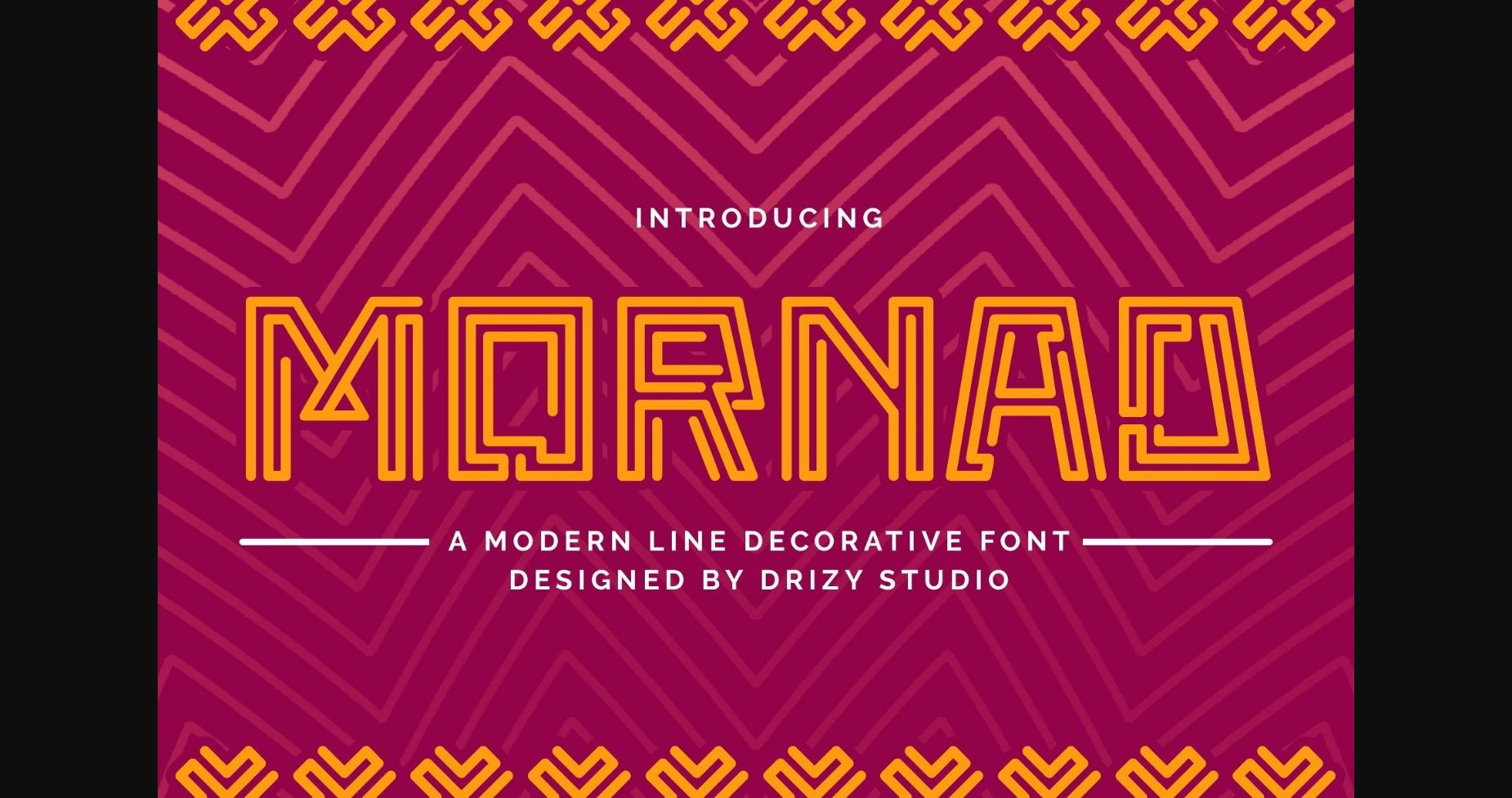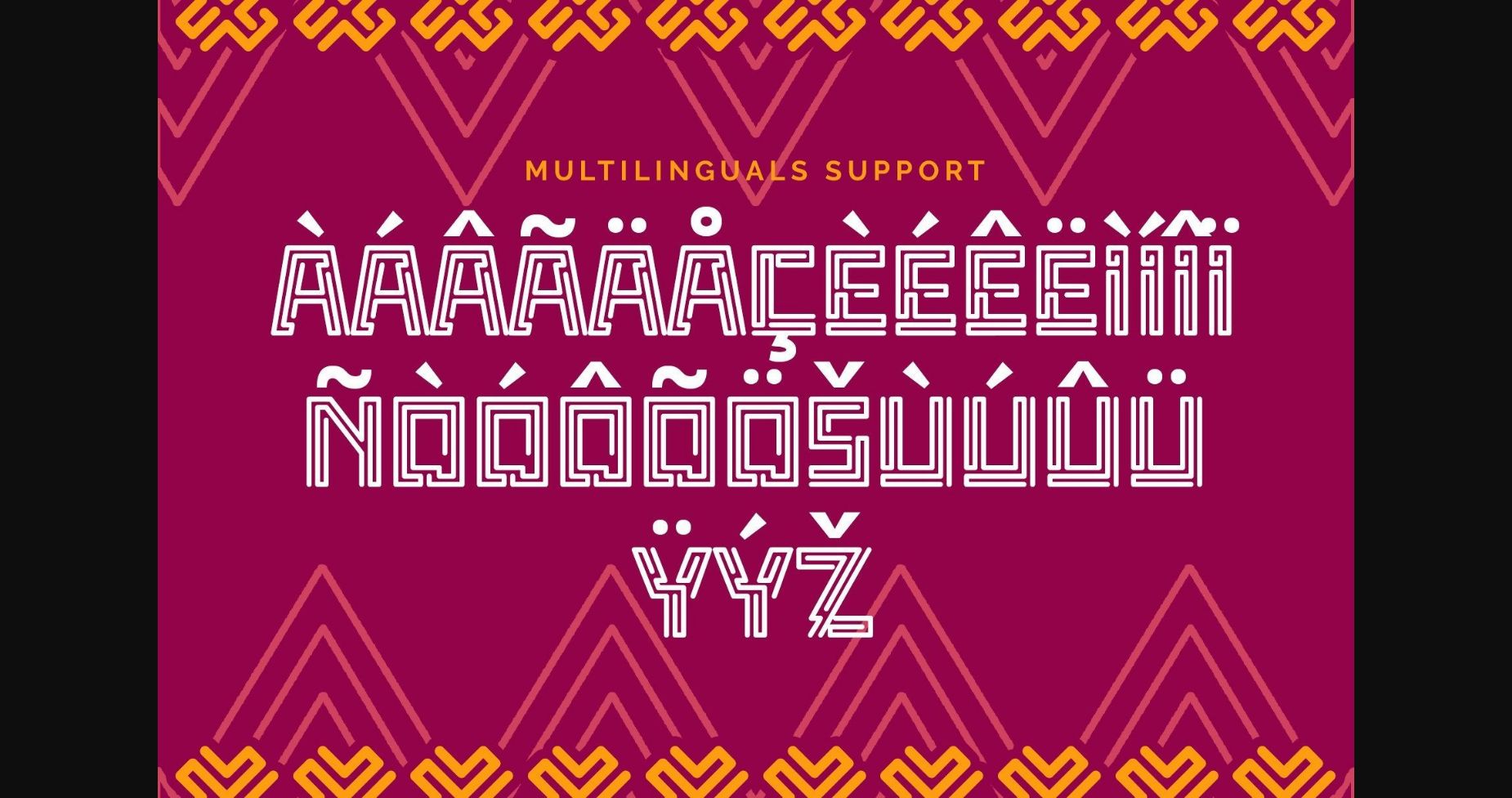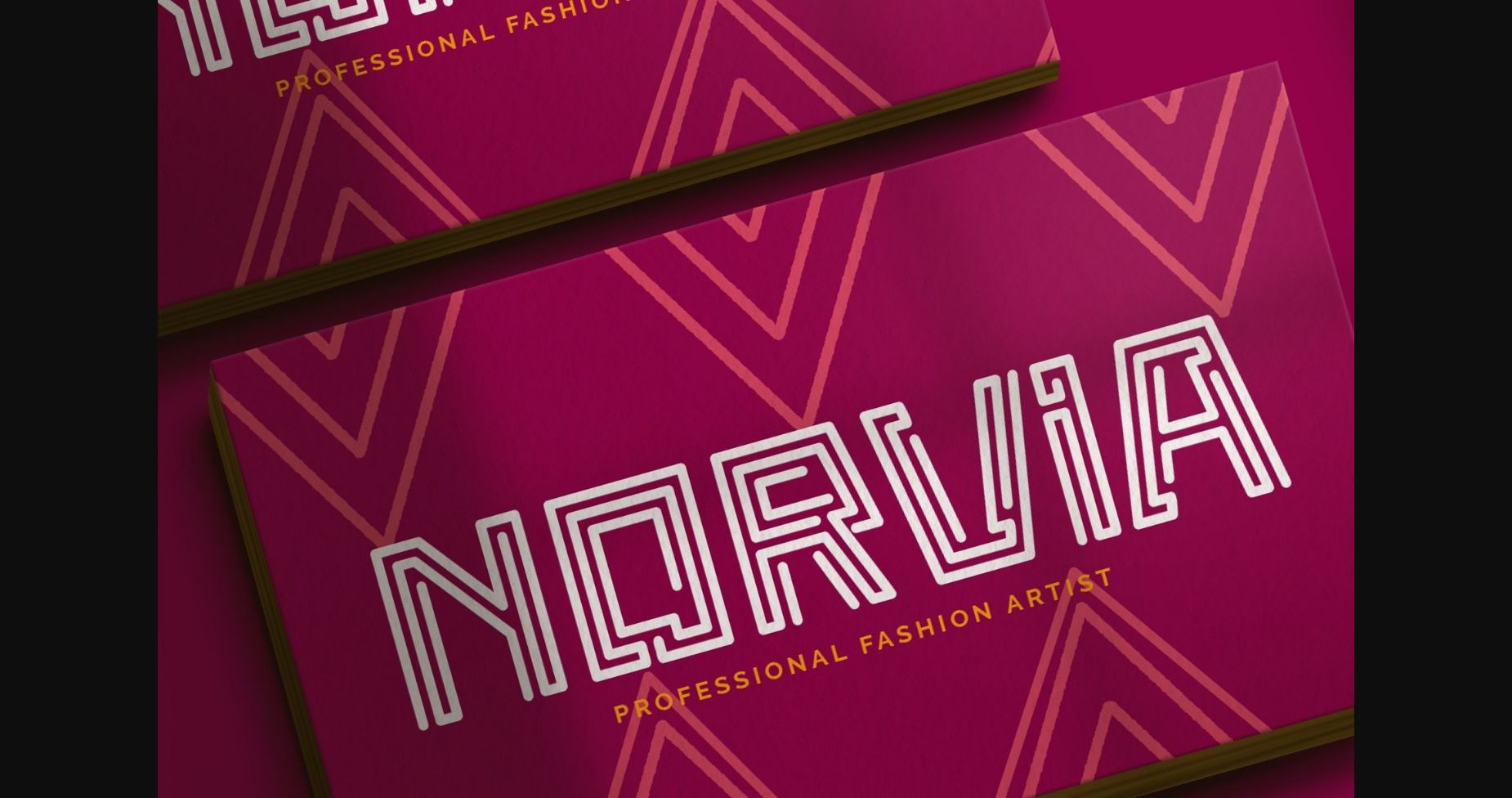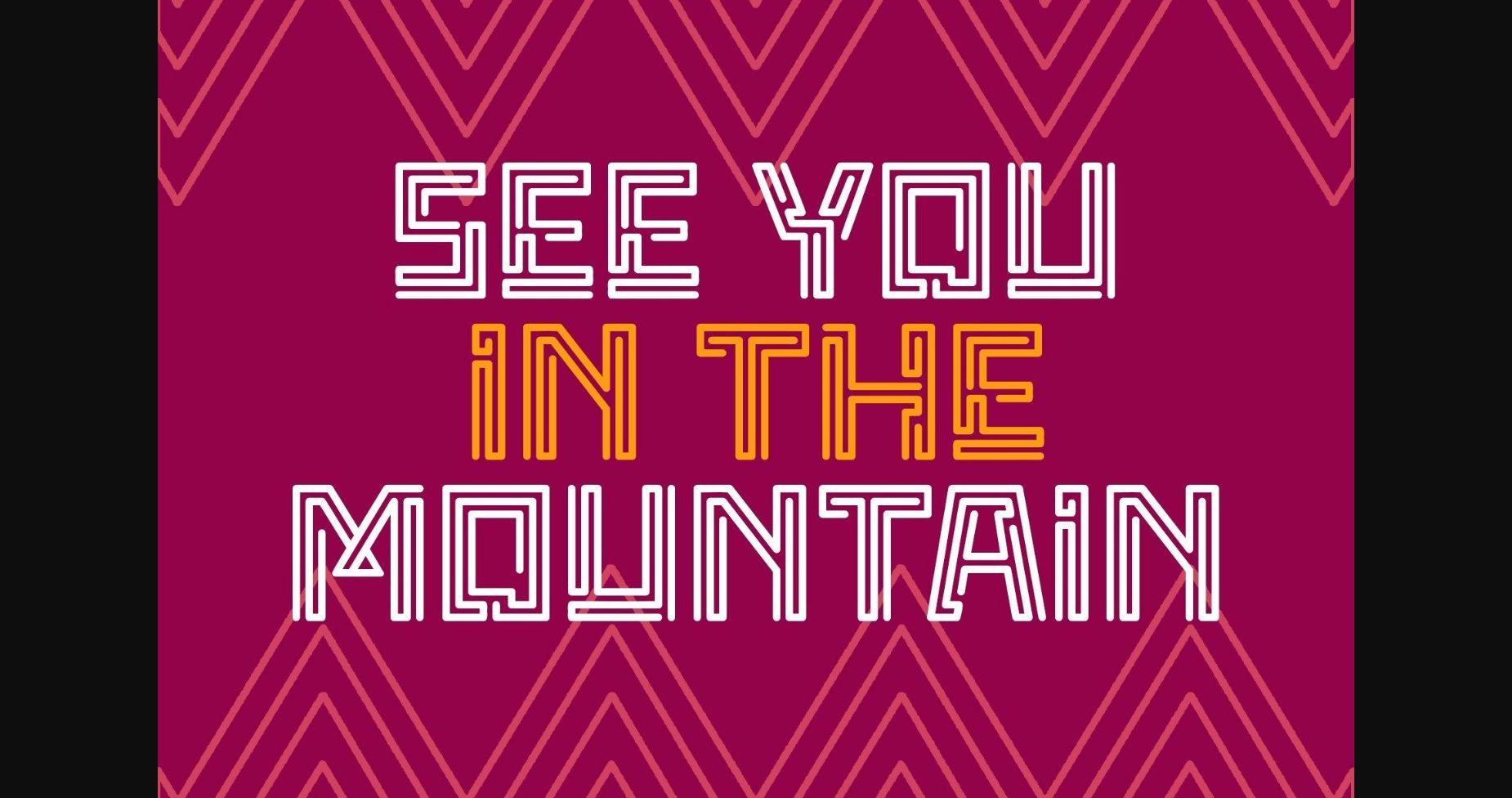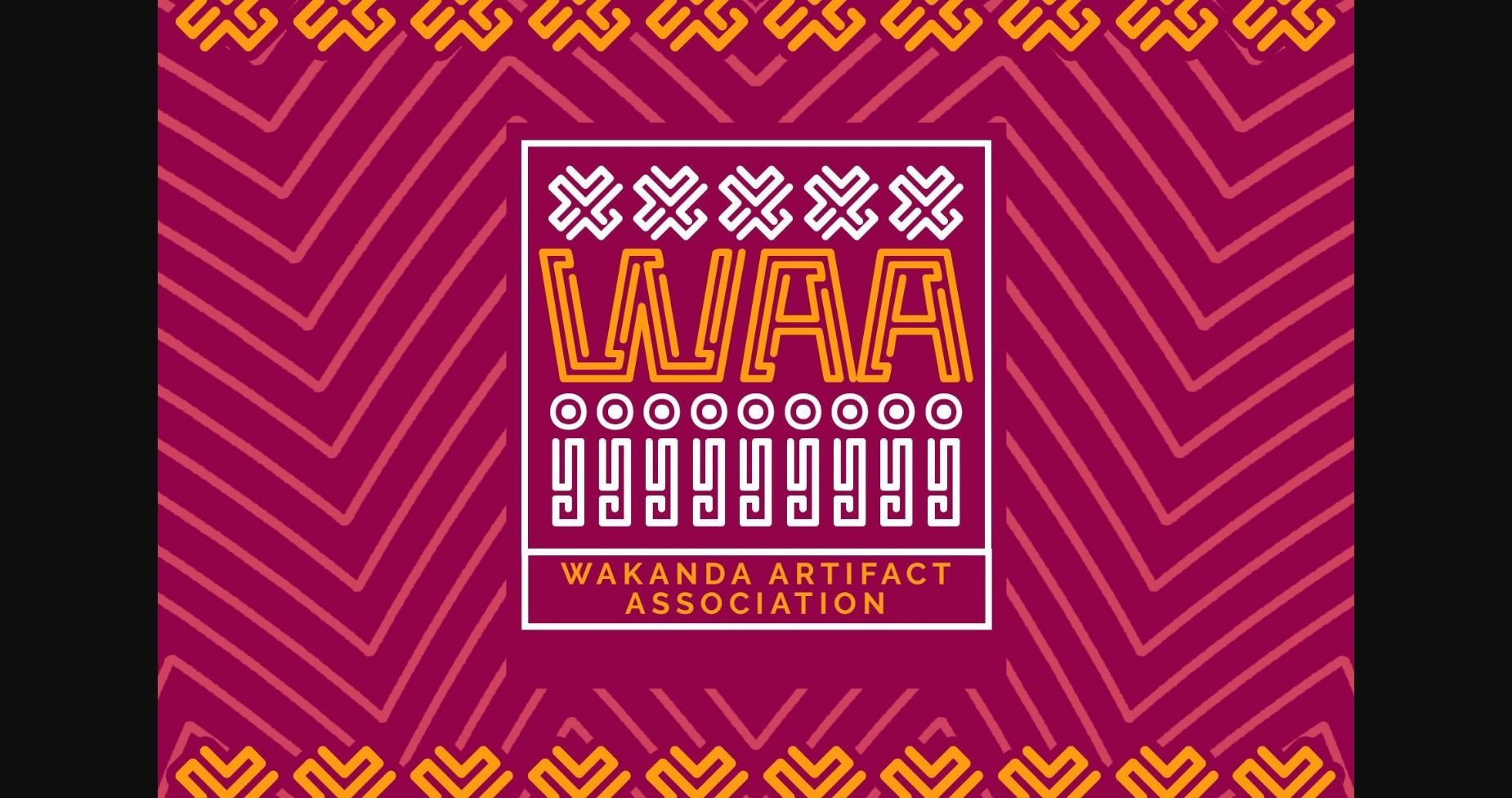
About Mornad Font
Mornad is a modern line decorative sans serif font. Masterfully designed to become a true favorite, this font has the potential to bring each of your creative ideas to the highest level!